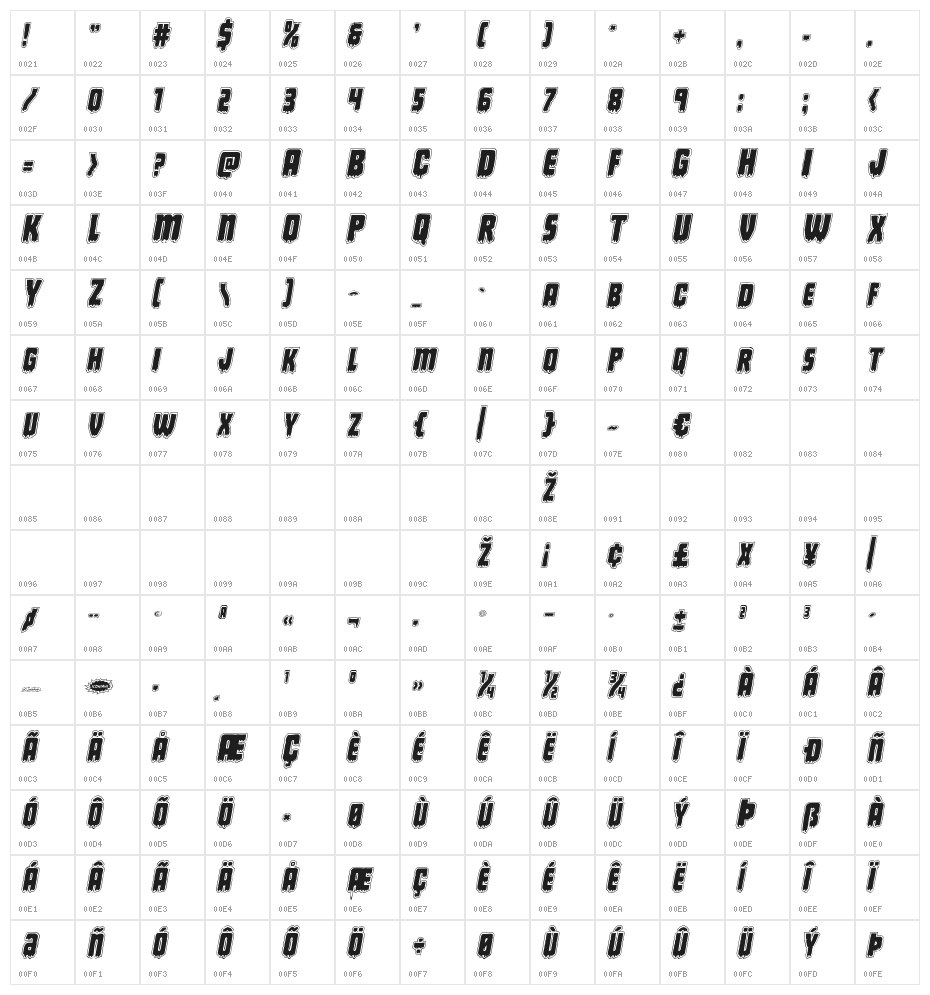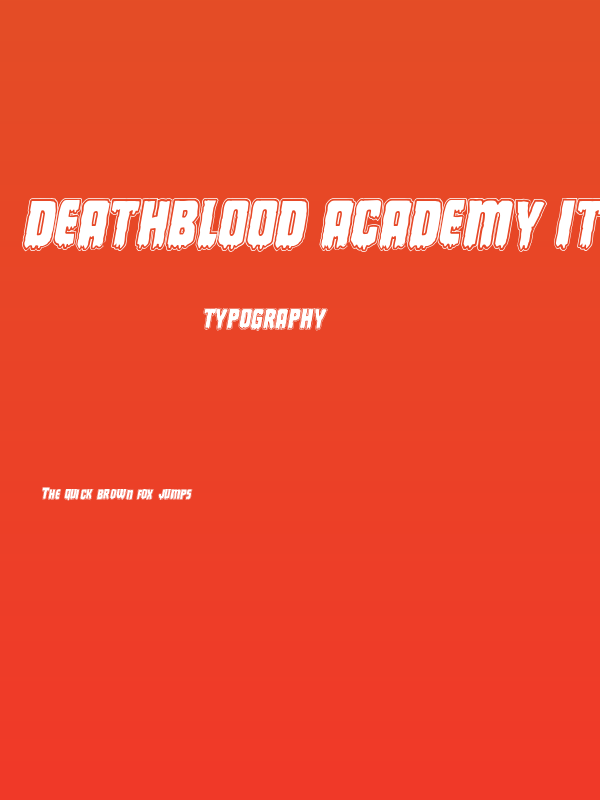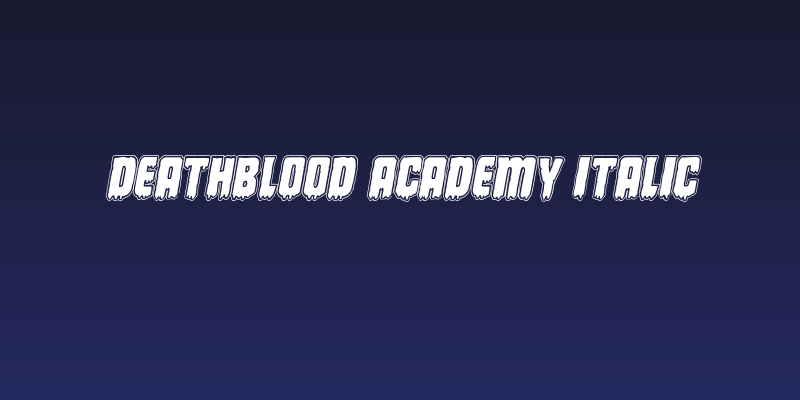
Deathblood Academy Italic Font
Deathblood Academy Italic Description
This font exudes a bold and dramatic presence with its thick, heavy strokes and unique dripping effect, reminiscent of horror or gothic themes. The characters are designed with a distinct outline that enhances their visibility and impact, making them stand out in any design. The italic style adds a dynamic and slightly aggressive slant, further emphasizing its edgy and unconventional appearance. The font's overall design is perfect for creating a sense of mystery and intensity, suitable for projects that require a strong visual statement.
| Overall Style | Gothic, Horror |
| Proposed Projects | Perfect for horror movie posters, Halloween event flyers, video game titles, or any project needing a gothic or eerie touch. |